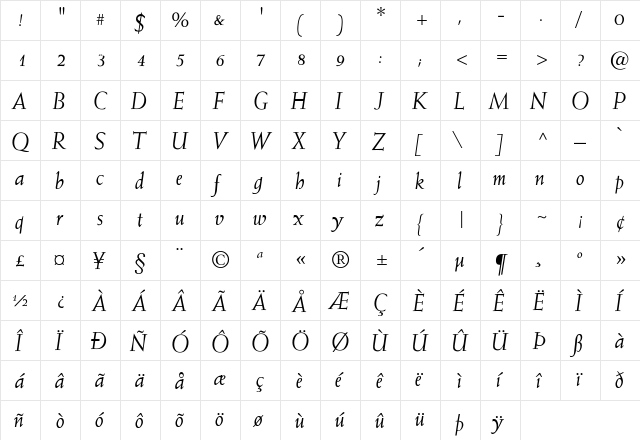
Durrell-Italic Regular
Design Context for Durrell-Italic Typeface
Durrell-Italic takes a measured approach to typography — its balanced proportions and neutral character make it a reliable workhorse for both digital and print work. The dynamic lean of this cut emphasises speed and emphasis in any layout.
Pro Tip: Use Durrell-Italic for emphasis, pull quotes, and subheadings where its slanted energy can add rhythm to the layout.